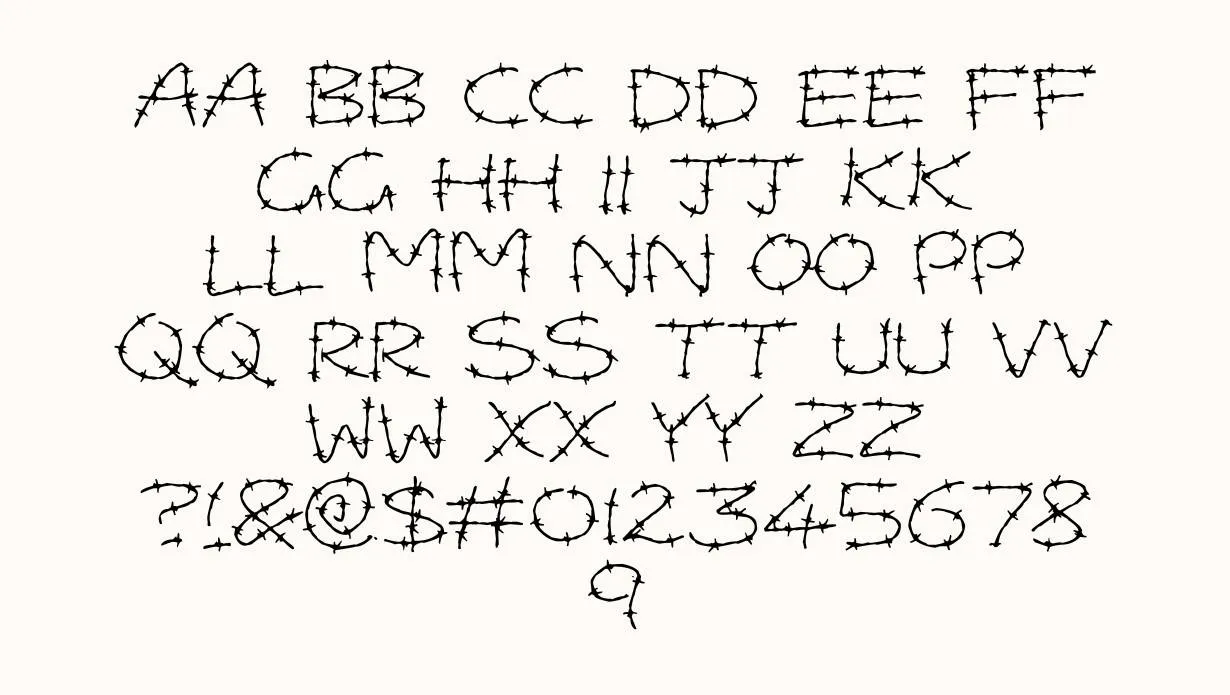
Here we talk about a fancy, horror-type font Barbed Wire Font which was designed by Hawtpixel. It is very unique font as it has a touch of wire in each character or alphabet which makes it look horror. It has many characters and 204 glyphs. The weight of the font is light and its width is medium (normal).
You can make interesting horror movie logos, titles, posters, banners, and all other advertisement purposes. It is available in both formats True Type Font and Open Type Font so you can use it on many devices such as Windows, PC, and Mac.